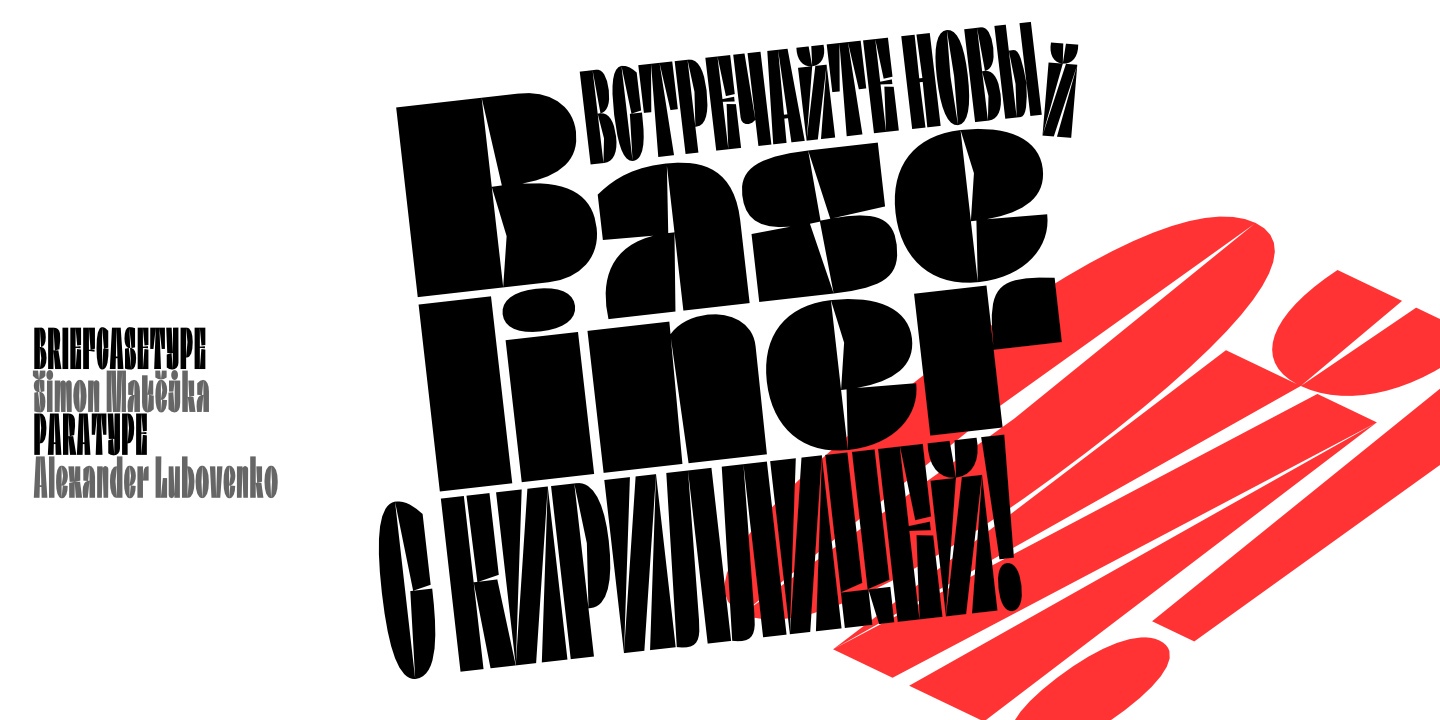
BC Baseliner Font
BC Baseliner Font is perfectly suited for sports team branding, athletic equipment packaging, competitive event signage, fitness center logos, team merchandise design, baseball stadium graphics, sporting goods marketing, championship banners, and dynamic sports-themed advertising campaigns.
What makes BC Baseliner Font so exciting is its powerful athletic energy and competitive spirit that instantly evokes the excitement of baseball diamonds and sporting excellence in every dynamically crafted letterform. This commanding typeface captures the essence of America's pastime with its bold character shapes and confident proportions that suggest speed, precision, and championship determination. The font's strong visual impact and athletic styling create an immediate connection with sports enthusiasts and competitive athletes who live for the thrill of the game. BC Baseliner Font stands out through its ability to convey team spirit, competitive excellence, and athletic authority, making it perfect for projects that need to establish sporting credibility while inspiring audiences who are passionate about baseball, team sports, and competitive achievement.
The BC Baseliner Font family includes Regular, Medium, Bold, and Black weights, each maintaining the font's distinctive athletic character while providing design flexibility for various sports applications. The family also features condensed variations and team-inspired alternates that enhance the font's competitive appeal and provide comprehensive solutions for dynamic sports branding projects.
The technical excellence of BC Baseliner Font includes a comprehensive character set with uppercase and lowercase letters, numerals, punctuation marks, and sports-themed symbols that maintain the font's athletic character. The font has been optimized for both digital and print applications, ensuring consistent performance while preserving the bold, dynamic details that give it its distinctive sporting character and competitive appeal.
Whether you're designing sports team identities, creating athletic merchandise, developing championship event materials, or crafting designs that need to convey competitive spirit and team excellence, BC Baseliner Font delivers the perfect combination of athletic authenticity and professional quality that makes your projects resonate powerfully with audiences who celebrate the passion and glory of competitive sports and team achievement.